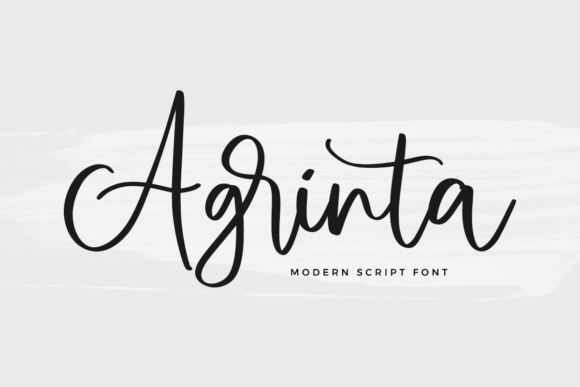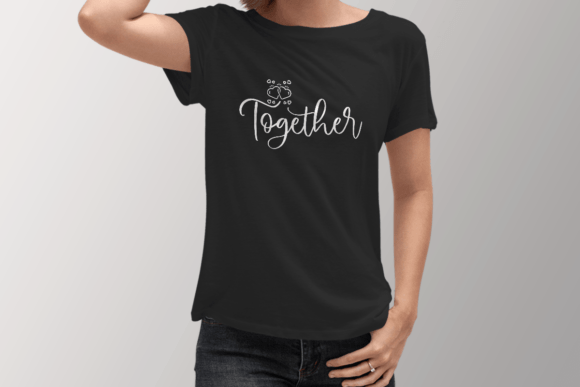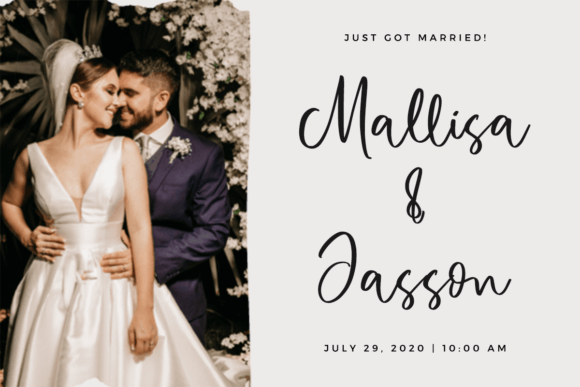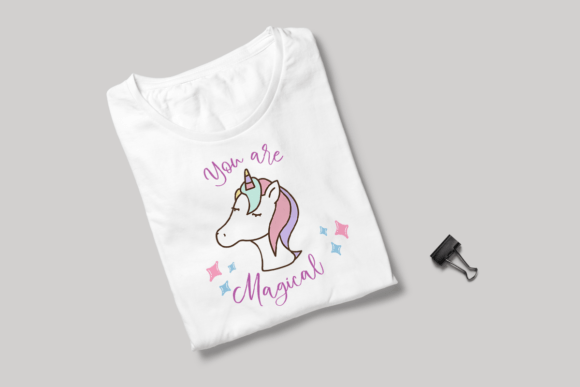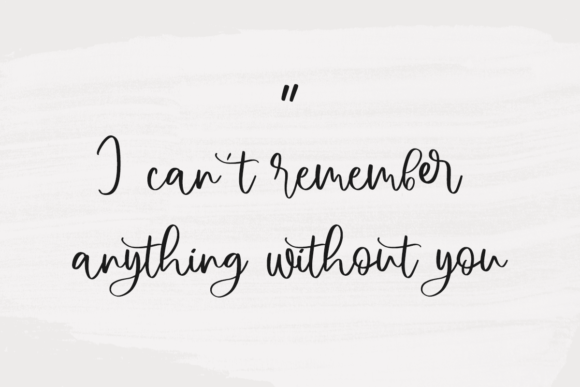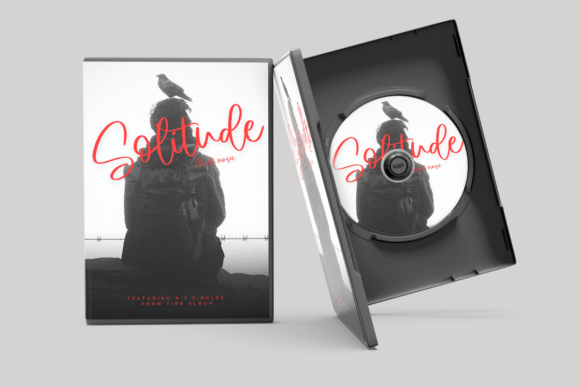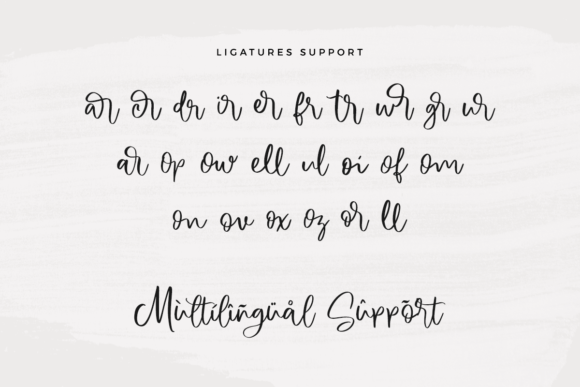
Agrinta Font
About Agrinta Font
Agrinta, a delightful and whimsical handwritten font, adds a sweet and quirky charm to your designs. Its playful nature brings a sense of enjoyment to every project, making each creation look lovely and captivating. This font goes beyond the ordinary by being PUA encoded, allowing you seamless access to all its charming glyphs and swashes, enhancing your design experience with ease and flexibility.
The sweetness of Agrinta shines through in its carefree strokes and distinctive characters, making it a perfect choice for a variety of design applications. Whether you’re working on invitations, greeting cards, posters, branding materials, or any project that calls for a touch of playfulness, Agrinta delivers with its unique and enjoyable style.
Imagine Agrinta gracing the pages of a children’s book, adding an extra layer of whimsy and fun to the storytelling experience. Its quirky charm also makes it suitable for lighthearted branding projects, turning logos and promotional materials into memorable and engaging visual statements.
The PUA encoding of Agrinta opens up a world of possibilities, allowing you to easily access and incorporate the diverse range of glyphs and swashes into your designs. This feature enhances your creative freedom, enabling you to customize and personalize your projects effortlessly.
In essence, Agrinta is not just a font; it’s a playful companion that injects a dose of sweetness and joy into your designs. Let Agrinta be the choice that brings a smile to your audience and makes your creations stand out with its delightful handwritten charm.